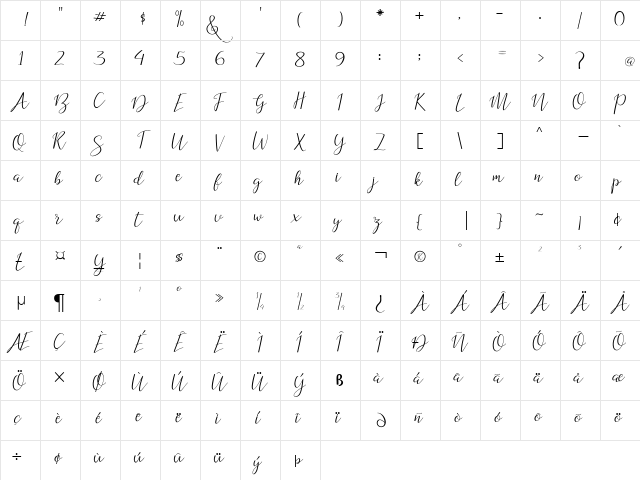
Dogma Script Regular
| Foundry | mrletters_Muhammad Rizal |
| Designer | mrletters_Muhammad Rizal |
Design Context for Dogma Script Typeface
Dogma Script flows with the natural rhythm of handwritten lettering, making it ideal for designs that call for warmth and personal expression.
Font Pairing: Combine Dogma Script with a simple geometric sans for maximum contrast — the tension between flowing curves and clean structure is a classic typographic pairing.
Pro Tip: Use Dogma Script for short runs of text — names, titles, or taglines. Extended body copy in script faces tires the eye quickly.